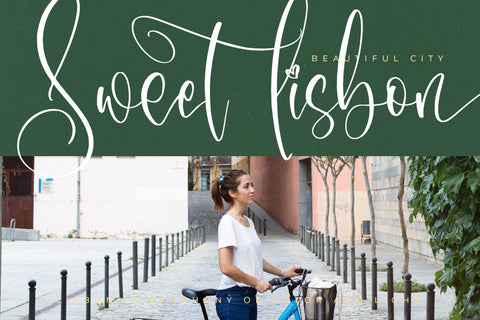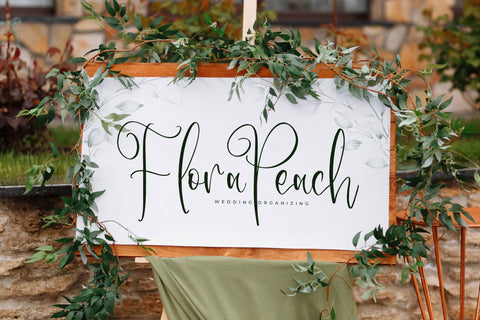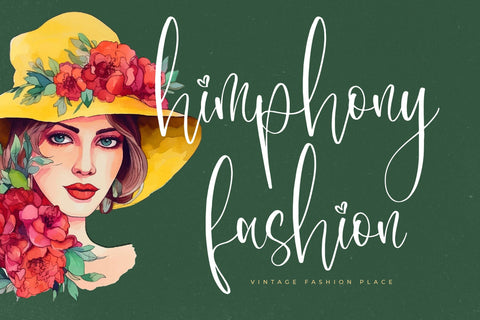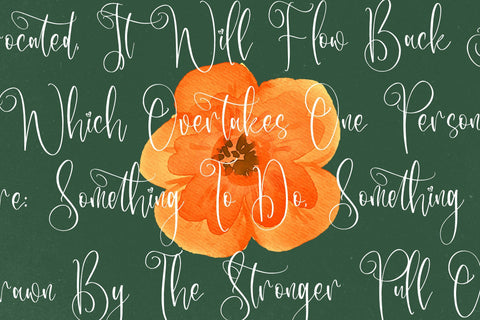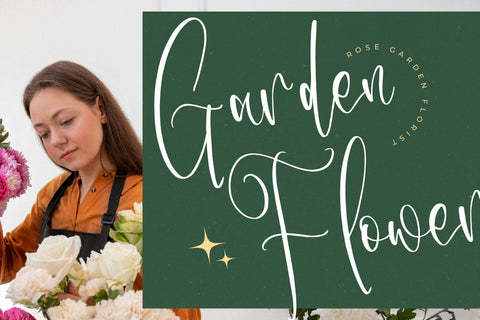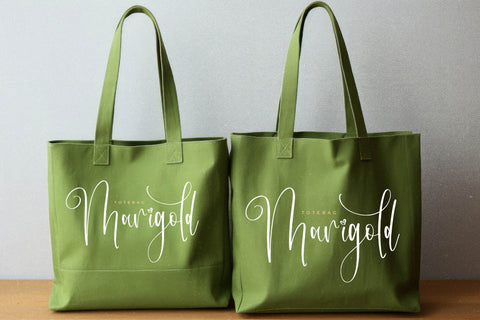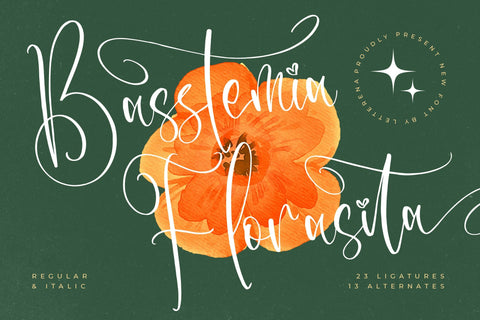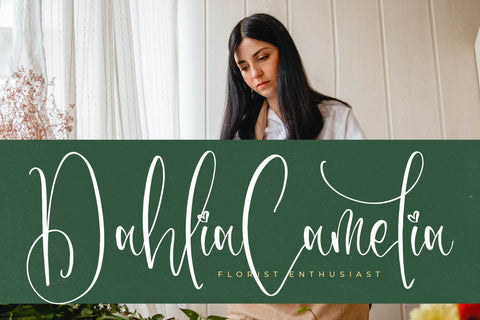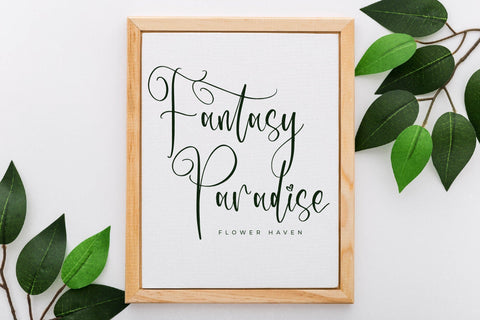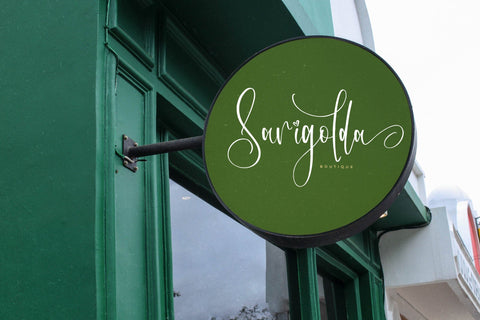
Basstemia Florasita - Beautiful Handwritten Font
Basstemia Florasita - Beautiful Handwritten Font , from Letterena, is a Luxury Script font, suitable for any projects such as: logos, branding projects, homeware designs, product packaging, mugs, quotes, posters, shopping bags, t-shirts, book covers, name card, invitation cards, greeting cards, label, photography, watermark, special events, and all your other luxury and beautiful projects that need a Luxury Script taste.